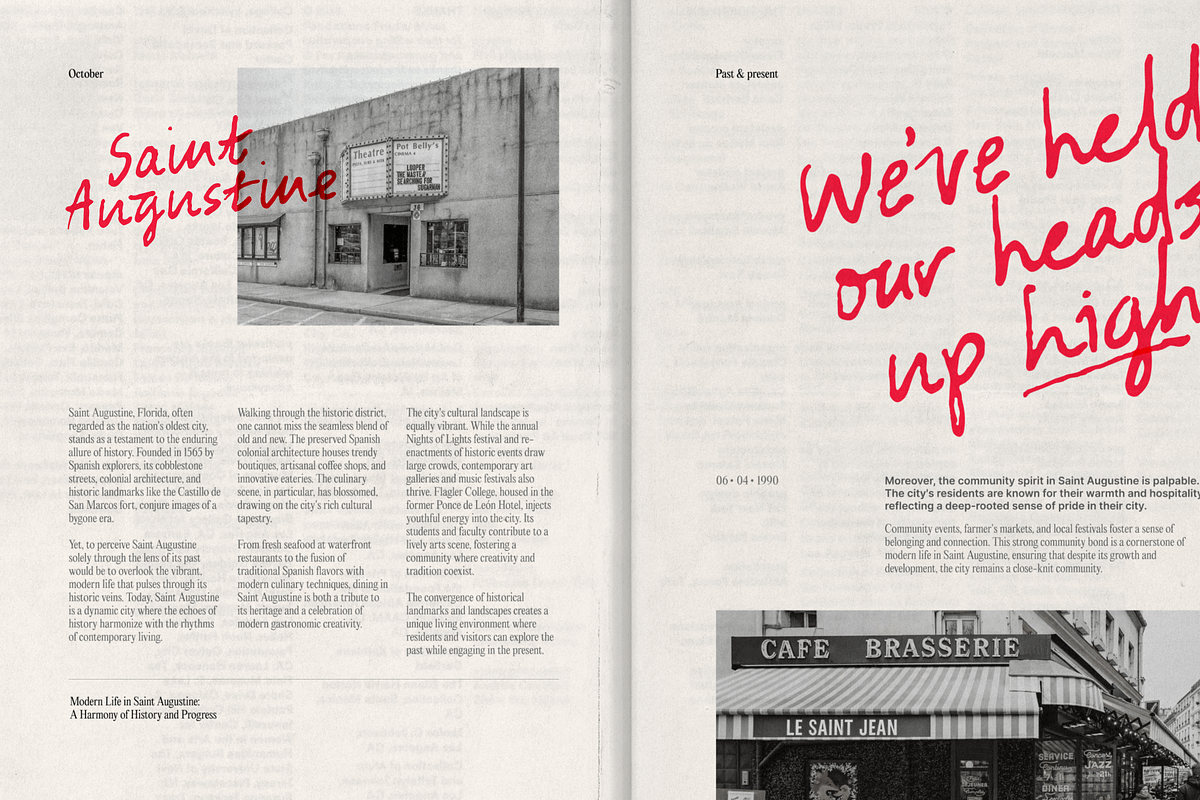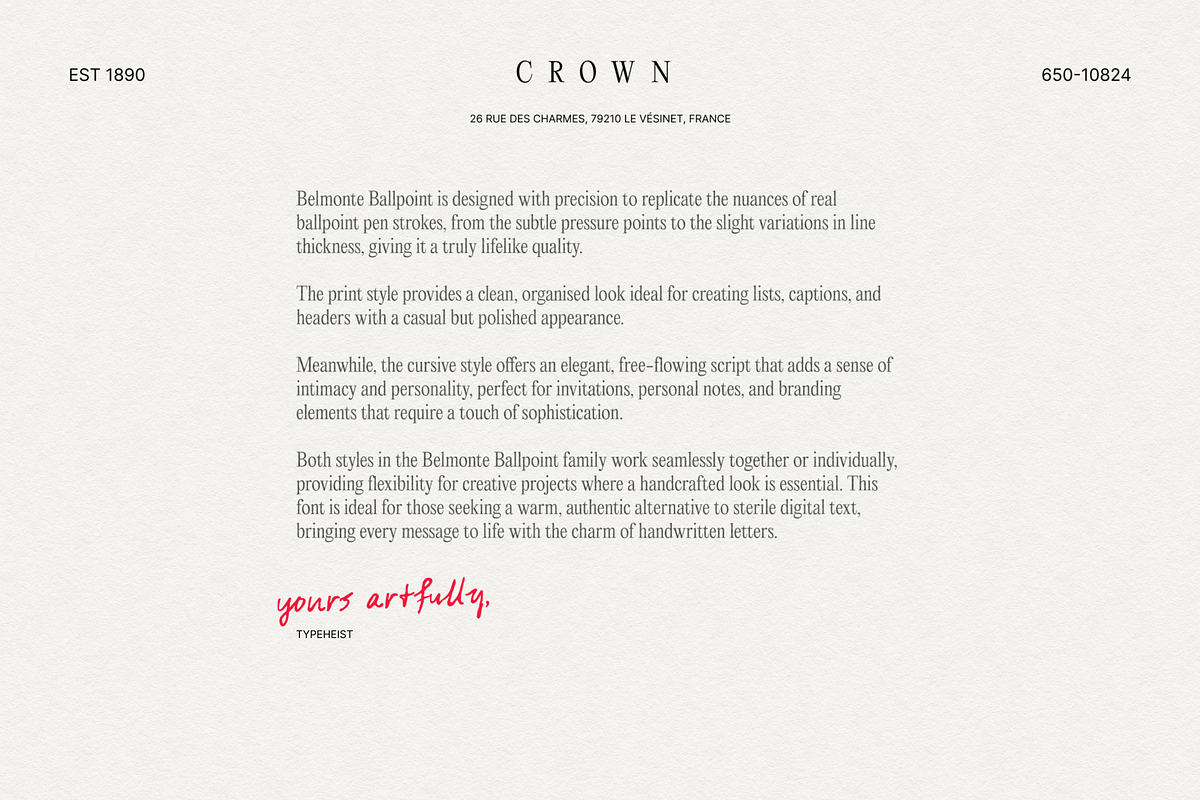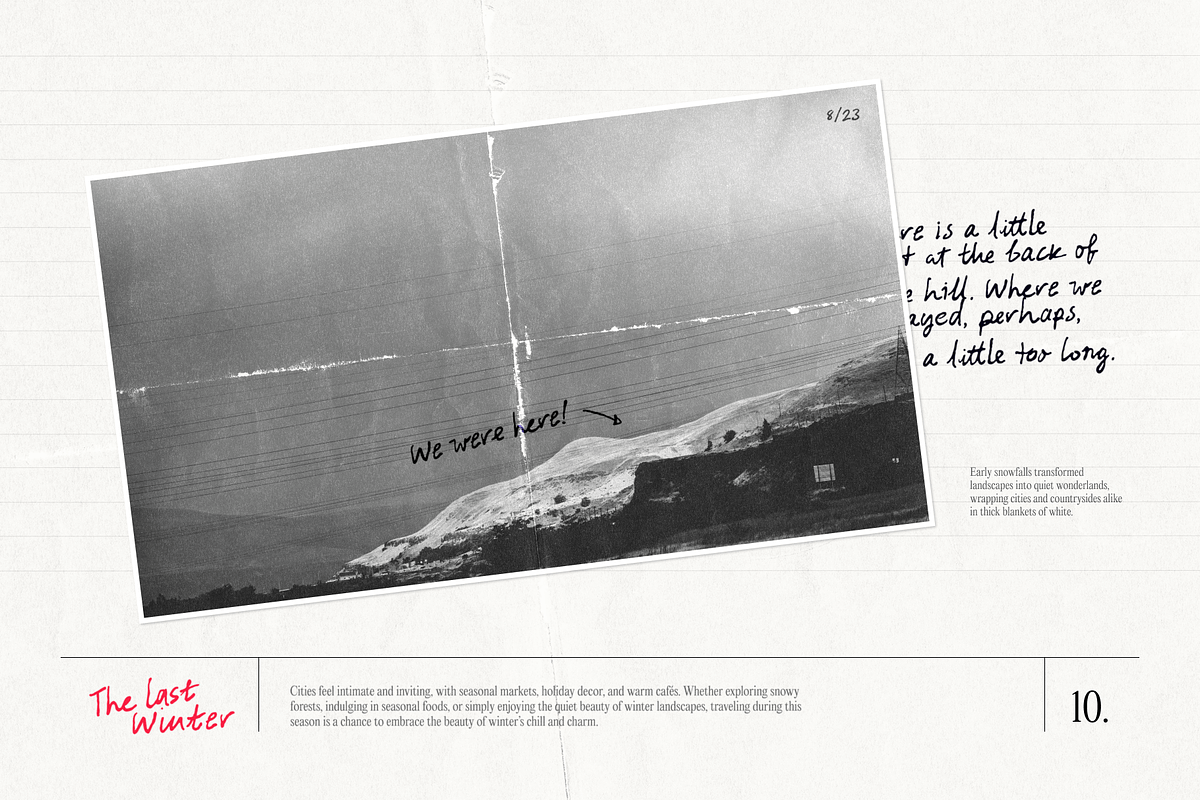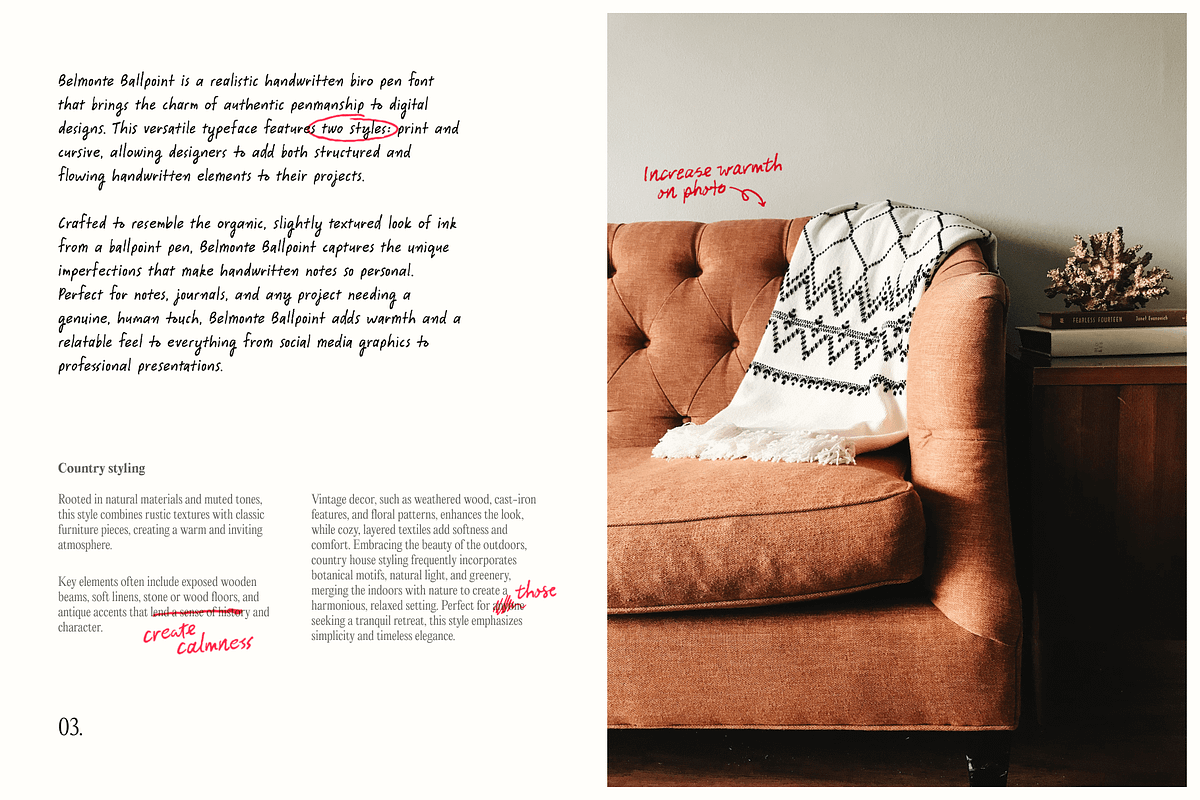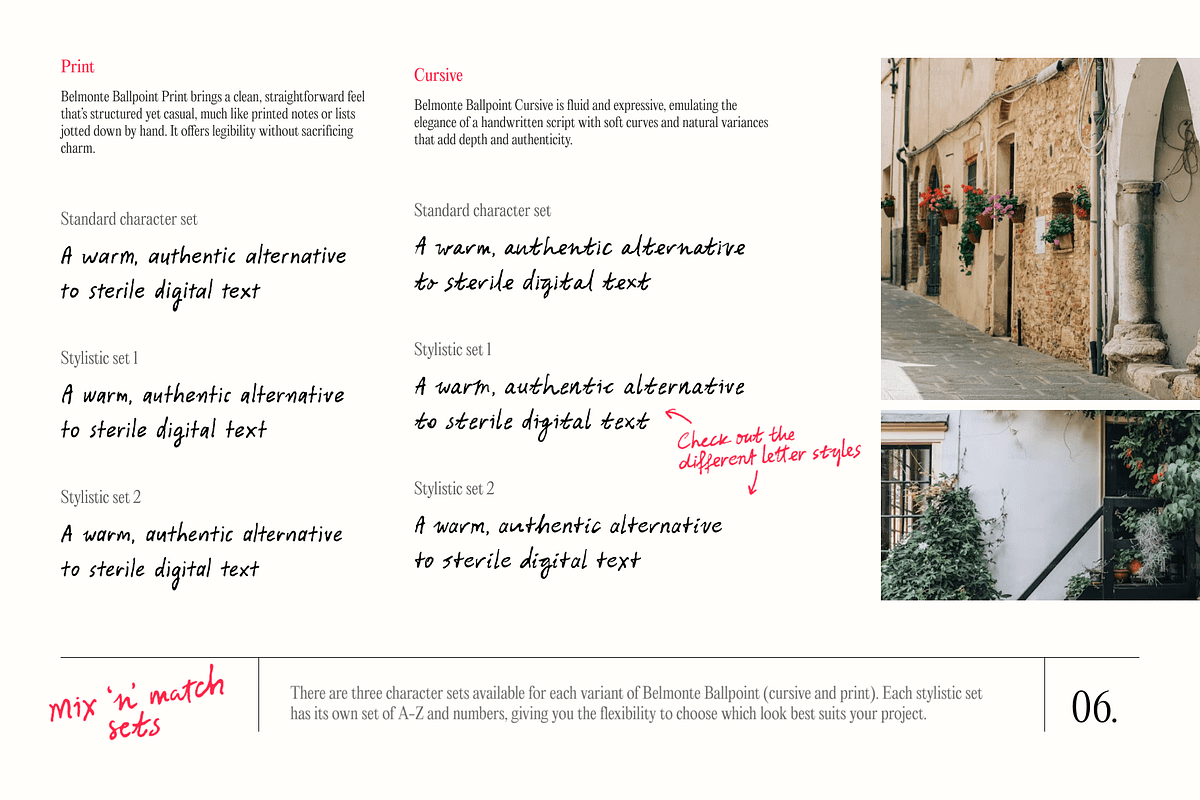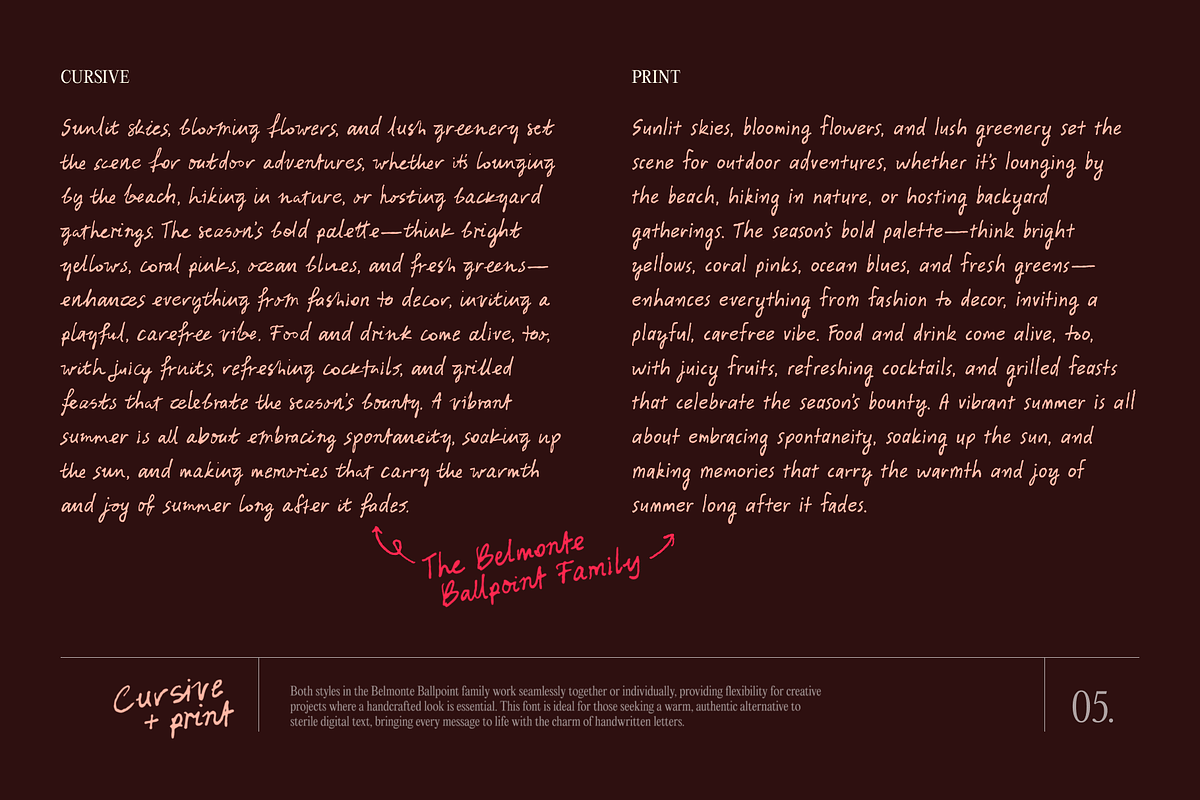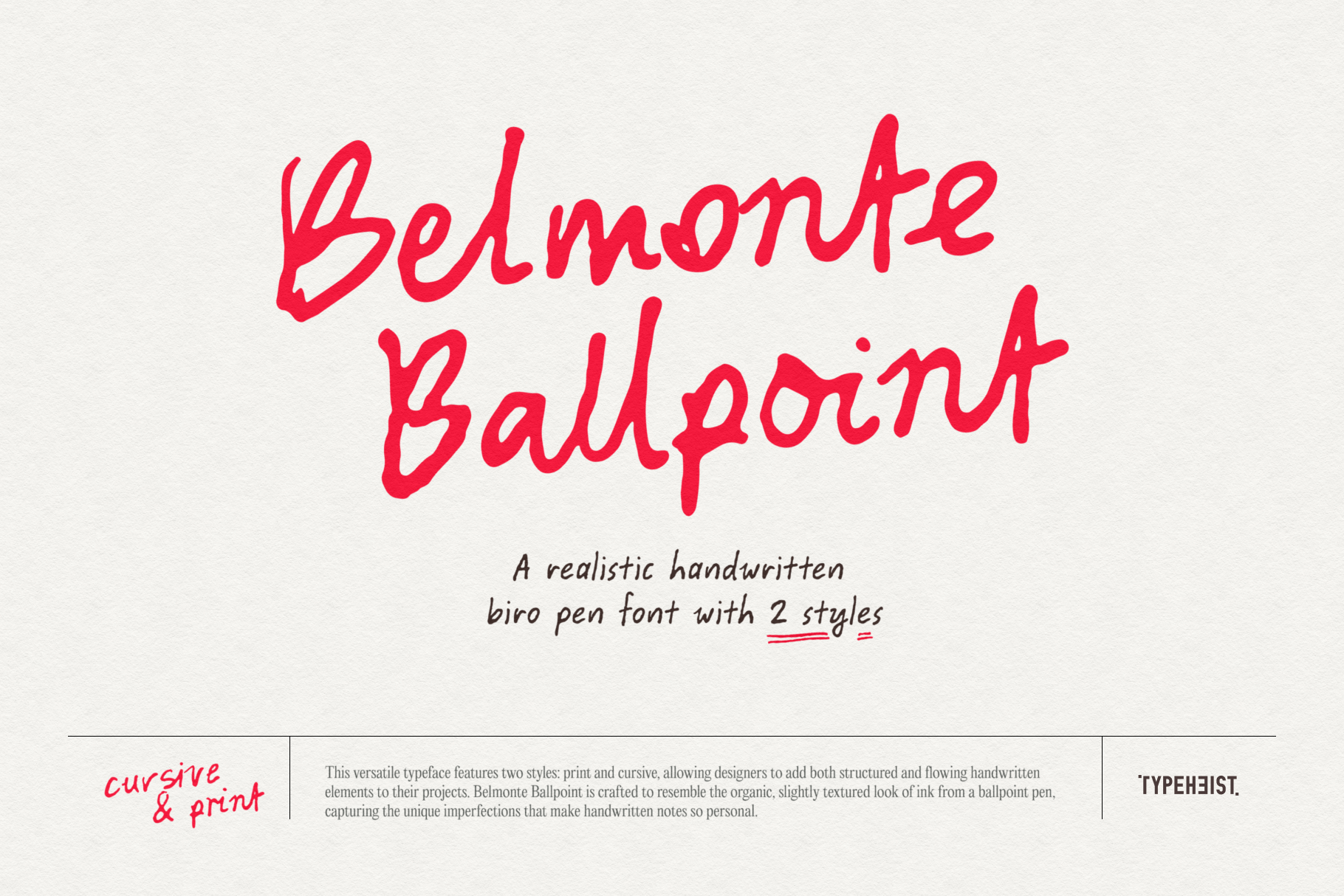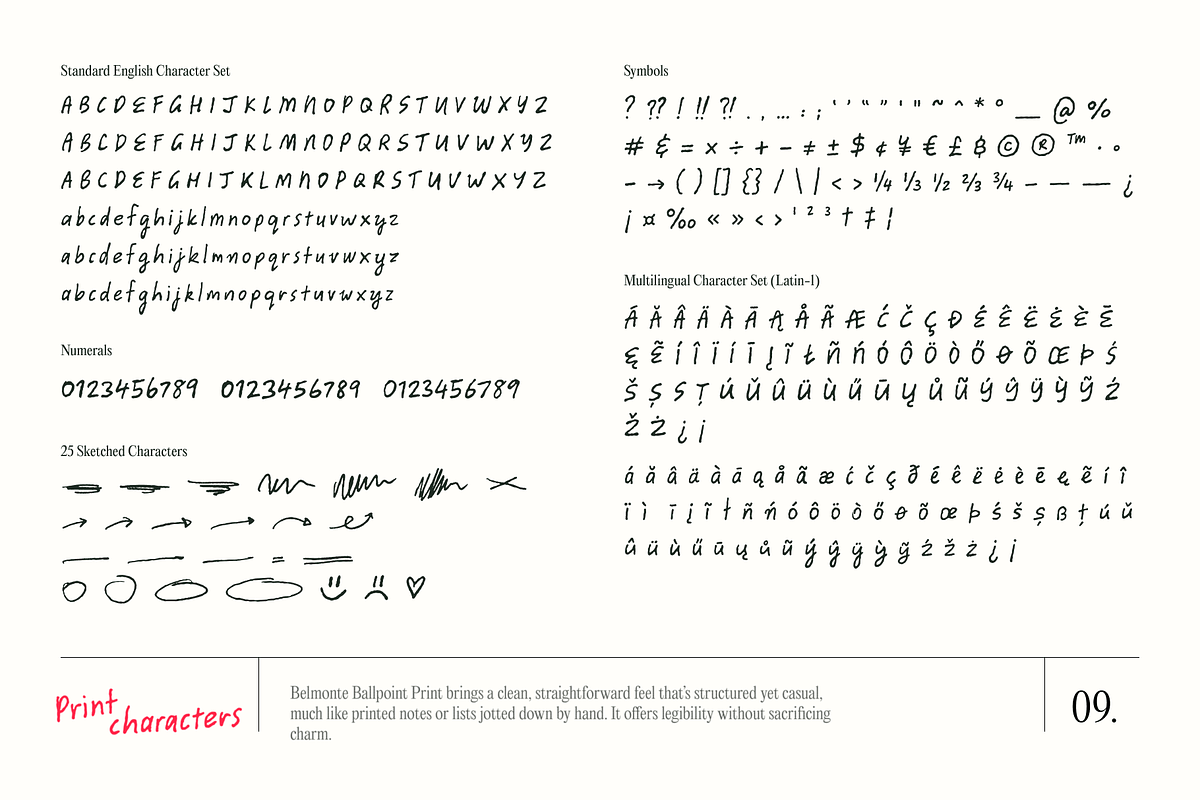
Belmonte Ballpoint Biro Pen Font
This versatile typeface features two styles: print and cursive, allowing designers to add both structured and flowing handwritten elements to their projects. Belmonte Ballpoint is crafted to resemble the organic, slightly textured look of ink from a ballpoint pen, capturing the unique imperfections that make handwritten notes so personal. Both styles in the Belmonte Ballpoint family work seamlessly together or individually, providing flexibility for creative projects where a handcrafted look is essential.
Belmonte Ballpoint has multilingual characters, three sets of A-Z and 0-9 characters, as well as an extended set of Latin characters.
Additionally, this font has its own set of 25 scribble glyphs which are accessible via keyboard shortcuts. Markup your documents as if it were a real pen ;)
- Belmonte Ballpoint (Cursive & Print available)
- A total of 1034 glyphs, 197 custom ligatures
- 2 additional stylistic sets for characters A-Z and 0-9
- Standard English/Latin characters
- Multi-lingual accented characters (try in the tester!)